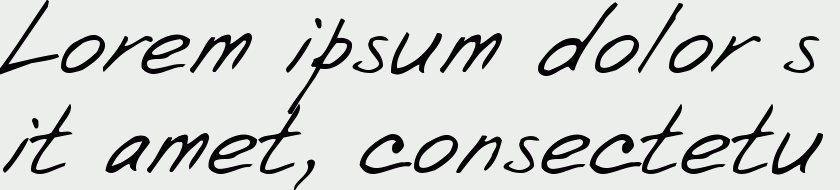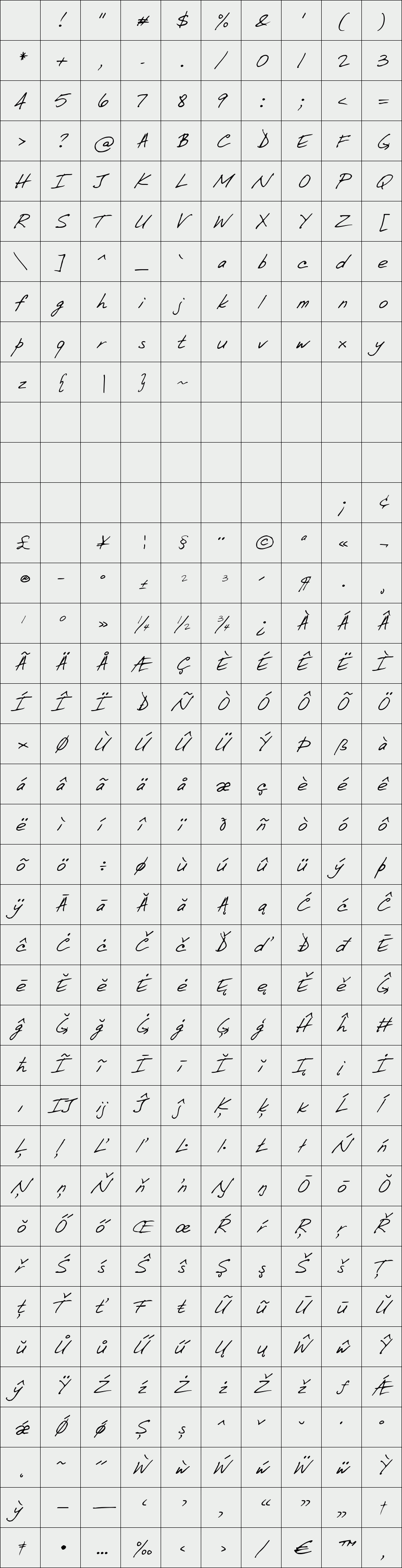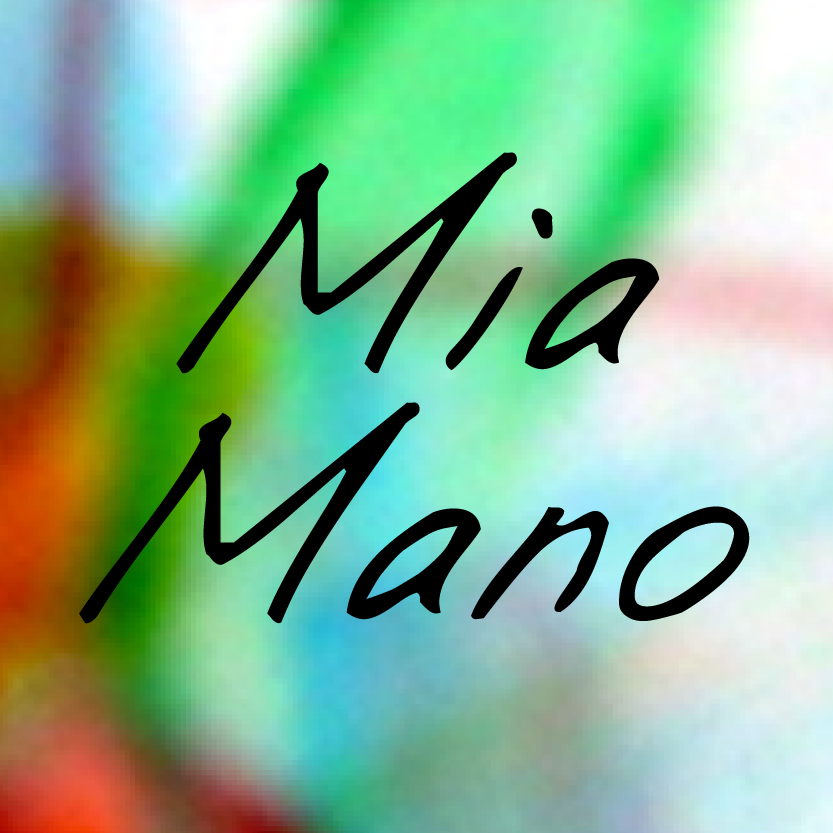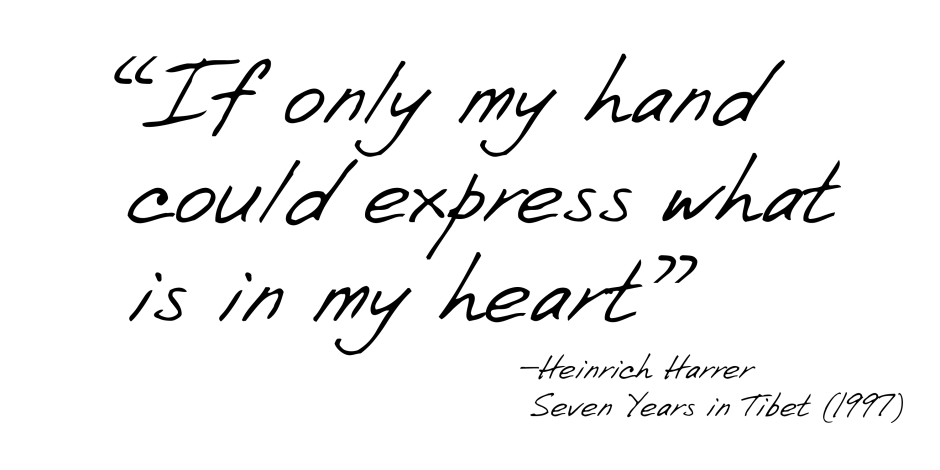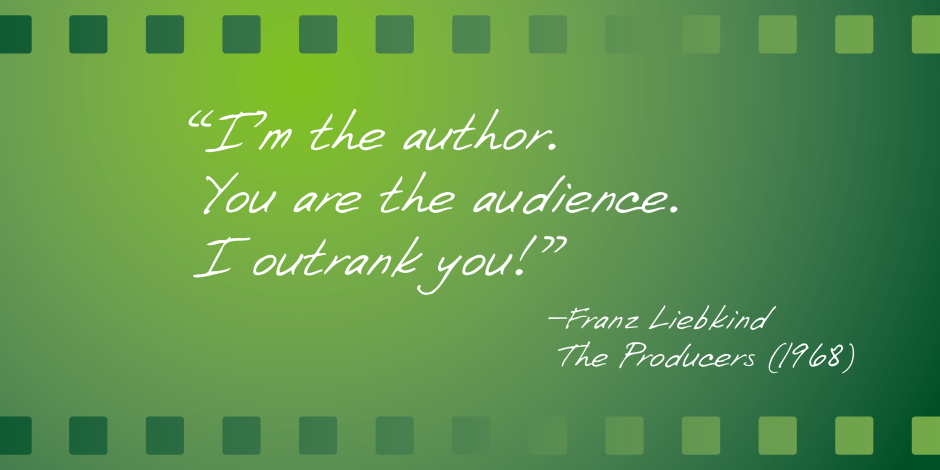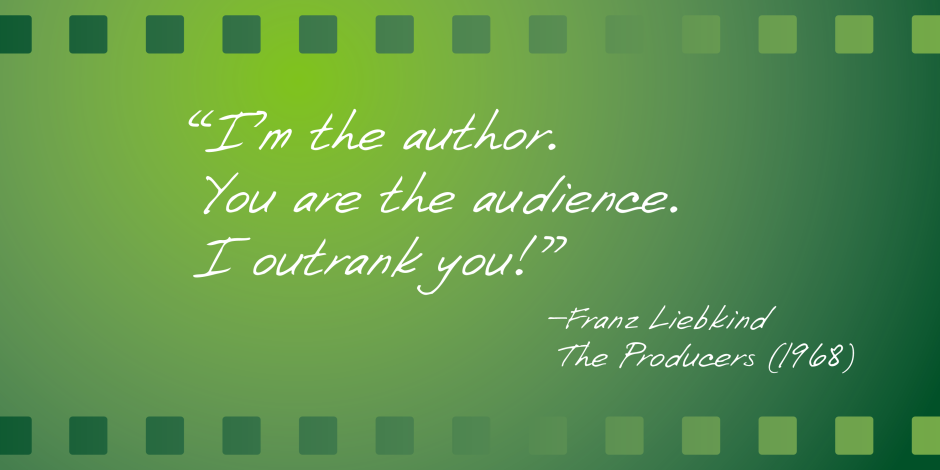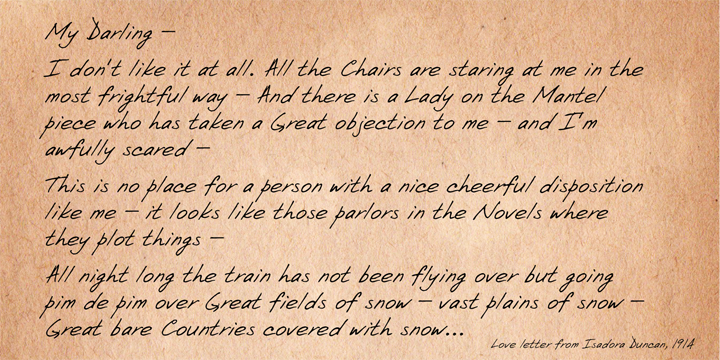
Mia Mano
Based on designer’s own handwriting, Mia Mano is a decorative display typeface ideal for headlines, logos, magazines, posters and short text.